Reno Mono Font
Reno Mono is a minimal and contemporary regular fixed-width font designed to be used as a webfont while also providing a memorable imprint when printed on paper. The mono-spaced and letter shapes rhythm allows for both warmth and precision while keeping an optimal readability in small screen sizes. It contains a very simple set of Latin characters. Symbols are stripped down singularly to keep a recognizable minimal feel.
This my first debut on Font Product, after 11 Years being a Graphic Designer. This combination consist of Handwritten Script as the main power. GRANOTTA is new dazling style script font with regular and italic style.
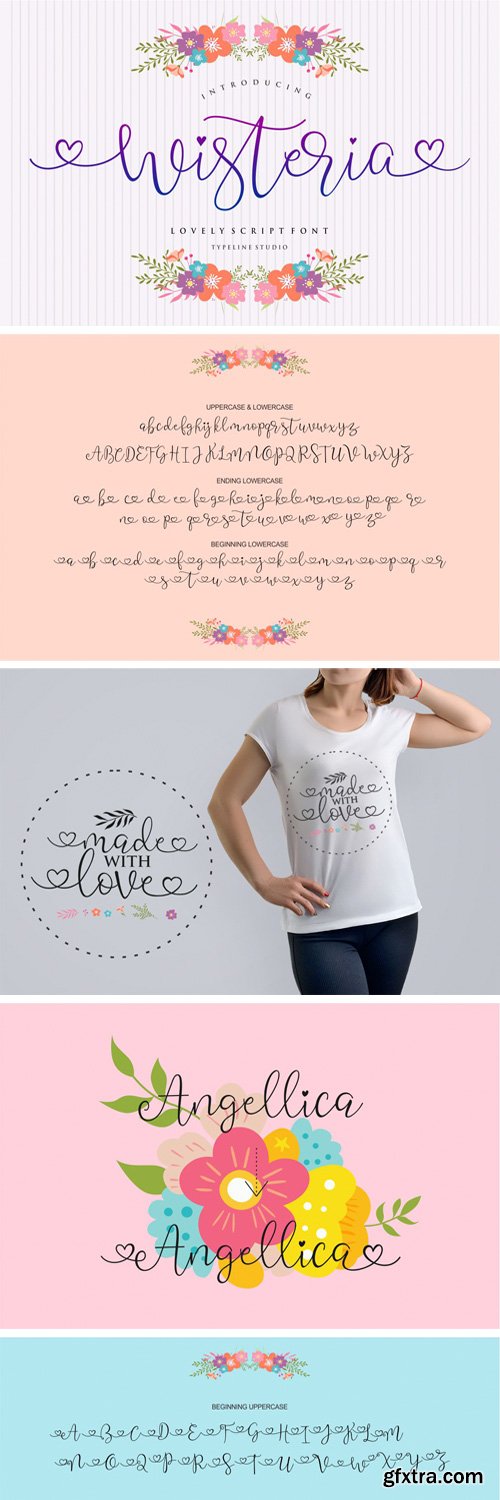
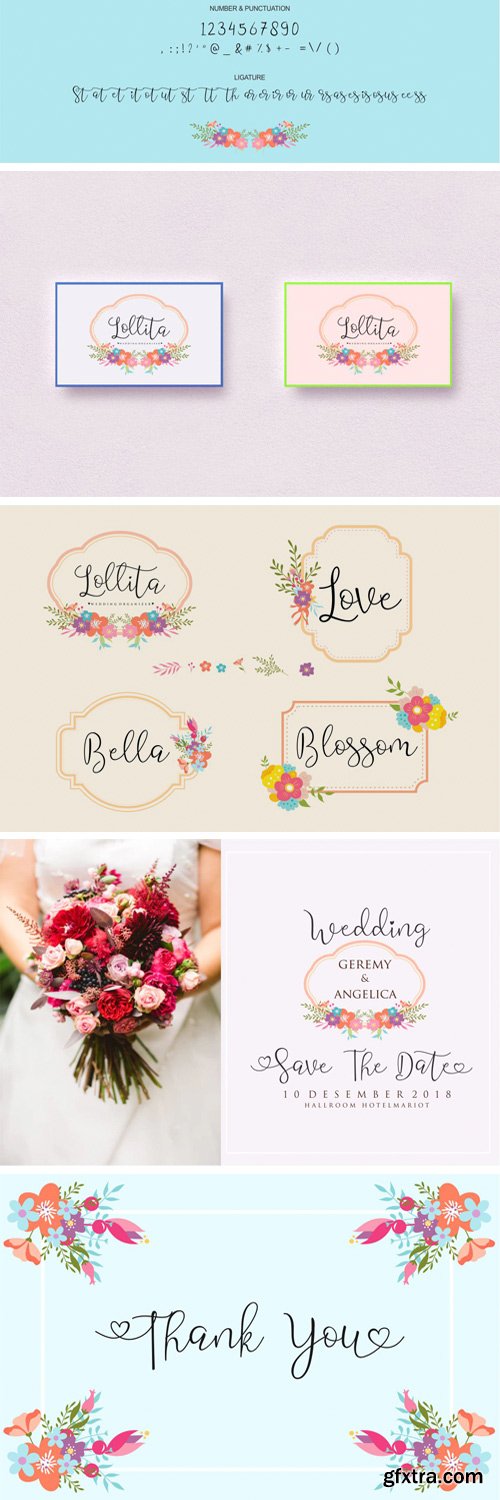
Wisteria Lovely Script Font 50% Off Intro SALEWisteria is a handwritten font made with love, a character that is very beautiful and varied, has a decorative impression of classic love with a modern touch, is designed with a full romantic feeling with the selection of brushes that are appropriate so as to present a stylish character font. Wisteria is interesting as a smooth, clean, feminine, sensual, glamorous, simple and very readable typeface, because there are a lot of ligature, initial and final letters that form the heart.
Lovina October Five Font
The Lovina October Five is a lovely script font. It has an elegant feel which will show trough in your designs when using it. Its two styles and amazing swashes make the Lovina October Five a truly unique font, suitable for multiple design purposes.
Sathar is a font that is made spontaneously and is very natural. added some unique emoticons in it.
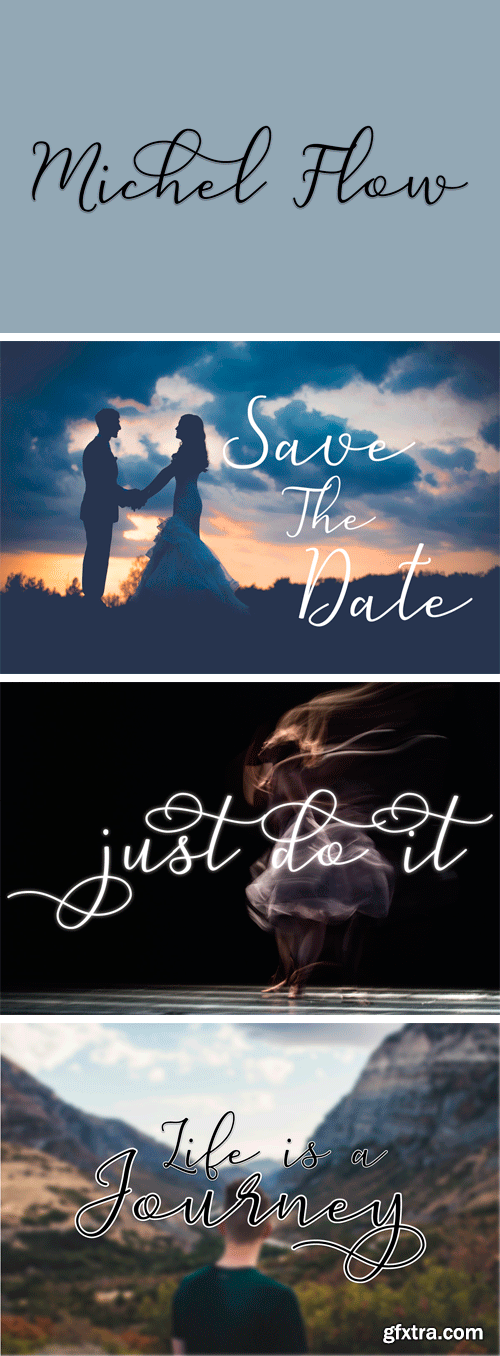
Michel Flow is a unique and script font. This font is ideal for branding and decorate your any project. This fonts are perfect for wedding invitation or your blog. you can create a logo or beautiful frame for your home. Or just use for your small business, book covers, stationery, marketing, magazines and more.
Batticuore means “palpitation” in Italian and is a powerful world. This font family is inspired by brush lettering, Batticuore provides two variants, Regular and caps. Both scripts are based on a brush strokes with a little contrast. A large set of ligature and alternates are included.
A typeface with a handmade signature style, very suitable to make a logos, name tag, handwritten quotes, product packaging, merchandise, social media & greeting cards.It contains a full set of lower & uppercase letters, a large range of punctuation, numerals, and multilingual support, also has alternative characters.
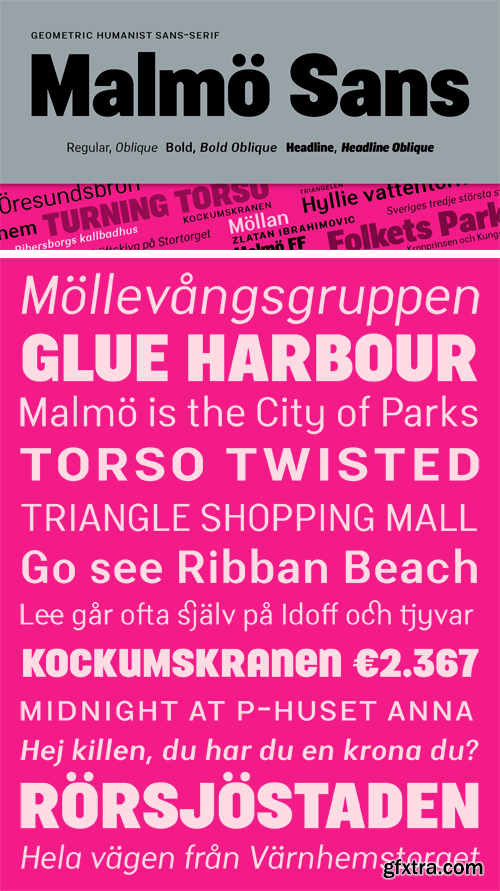
Malmö Sans was born from the preconception that geometry is neutral, and neutral fonts have a wide application window. No ornaments, no quirks – just clean.
Manyland - Handwritten Font is a free-flowing monoline, the style typeface exploits the common letter-to-letter transitions of the typical cursive hand by utilizing style points controlled within the machinations of OpenType Contextual Alternates.
CM - Sabatons - Vintage Font Duo 3289275
Introducing, Sabatons - Vintage Font Duo.
Sabatons - Vintage Font Duo is a sans font that comes with script, both will match perfectly. The vintage feel is really perfect for you who needs a typeface for especially logotype, apparel, branding, packaging, advertising etc. This typeface is comes in uppercase, lowercase, punctuations, symbols & numerals, a bunch of alternate, ligatures, etc also support multilingual and already PUA encoded. Also with stamp version that will make the fonts more vintage!
CM - Youther Brush - Layered Font Duo 3125776
Introducing, Youther Brush - Layered Font Duo!
Youther is a font duo with layered style. Yes, you can make a fancy typography only with this fonts, without any plugin or action! This font family contain the fabulous script and also comes with caps font. Youther is perfect to be used as logotype, badge and label! This has many opentype features like ligature, stylistic alternate, contextual alternate, swash, etc and support multi language.
Introducing The Gresya Script, a stylish Font Style. This beautiful script font offers your personal touch to your latest art project with elegant, classy and modern look. The Gresya Script offers gorgeous typographic will perfect for many different project such as logos & branding, invitation, stationery, wedding designs, social media posts, advertisements, product packaging, product designs, label, photography, watermark, special events or anything that need handwriting taste.
Maximin is a brand new handwritten font. Maximin is perfectly suited for stationery, logos, t-shirt, paper, print design, website header, photo frame, flyer, music cover, poster, image slider and much more.
Royela Font
The Royela is a whimsical script font. It has a fun flow and a perfect readability. Included are some amazing swashes which will add an elegant touch to your designs.